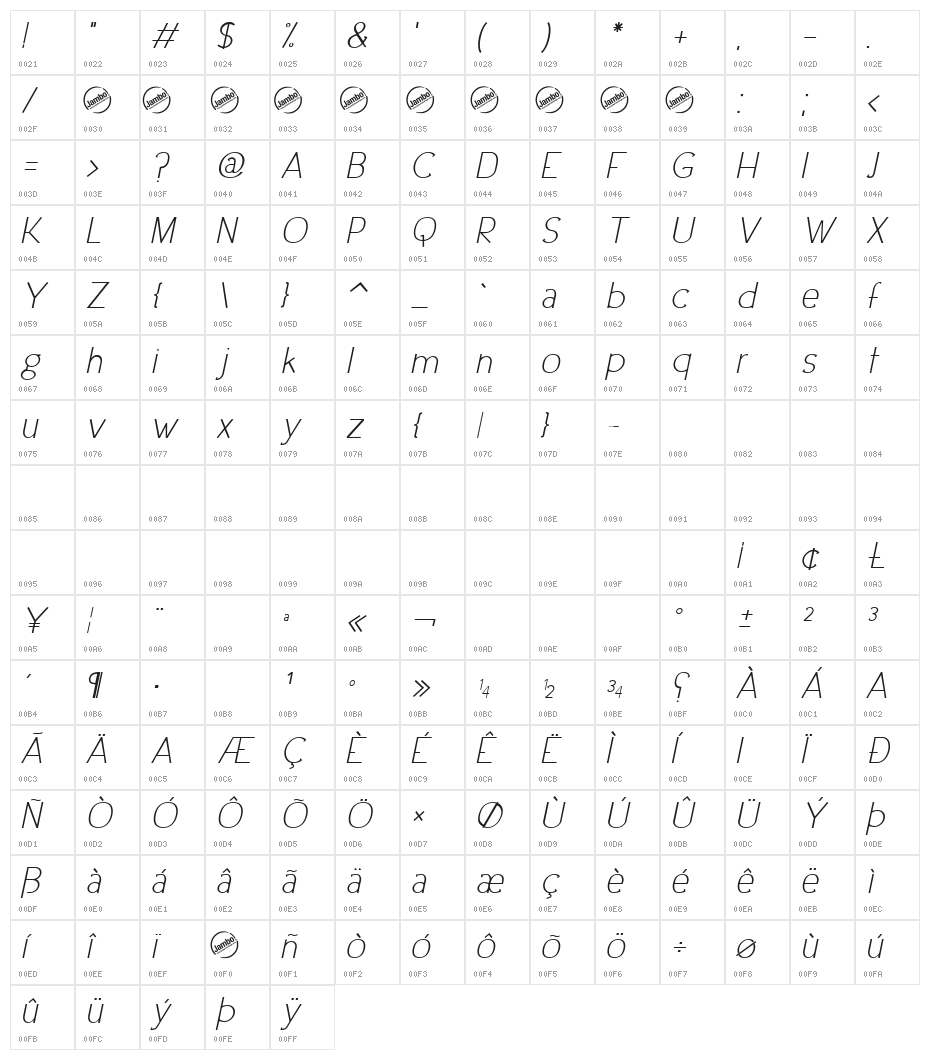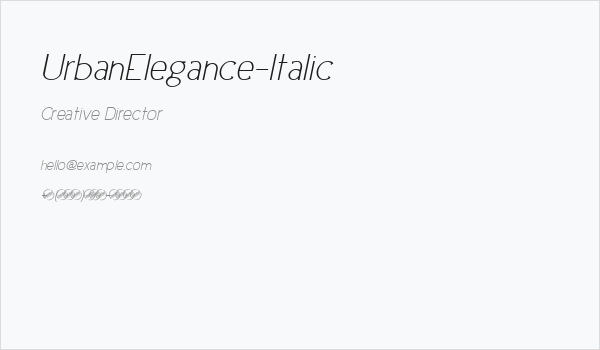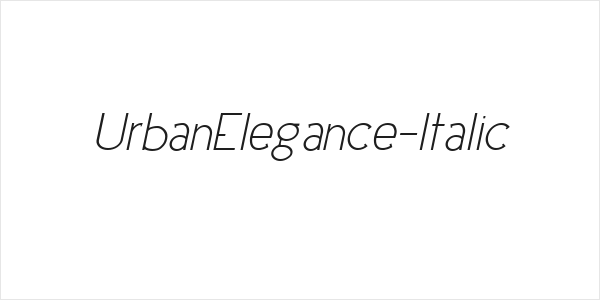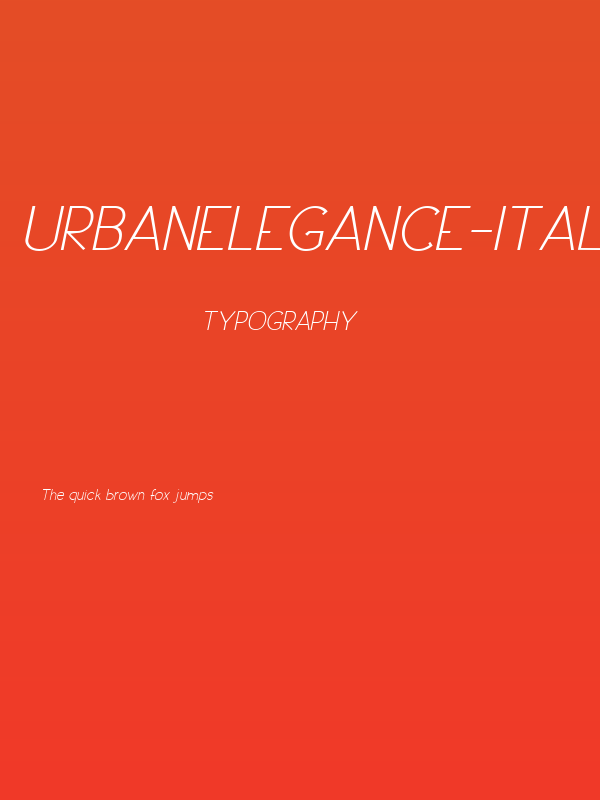
UrbanElegance-Italic Font
UrbanElegance-Italic Description
This font features a sleek and modern design with a distinct italic slant, giving it a sense of motion and elegance. The characters are crafted with clean, smooth lines and a consistent stroke width, contributing to a minimalist and contemporary aesthetic. The uppercase and lowercase letters maintain a harmonious balance, while the numerals and special characters are designed to complement the overall style. The font's simplicity and clarity make it highly legible, even at smaller sizes, making it versatile for various design applications.
| Proposed Projects | Ideal for branding, editorial design, fashion magazines, and modern web design projects. |